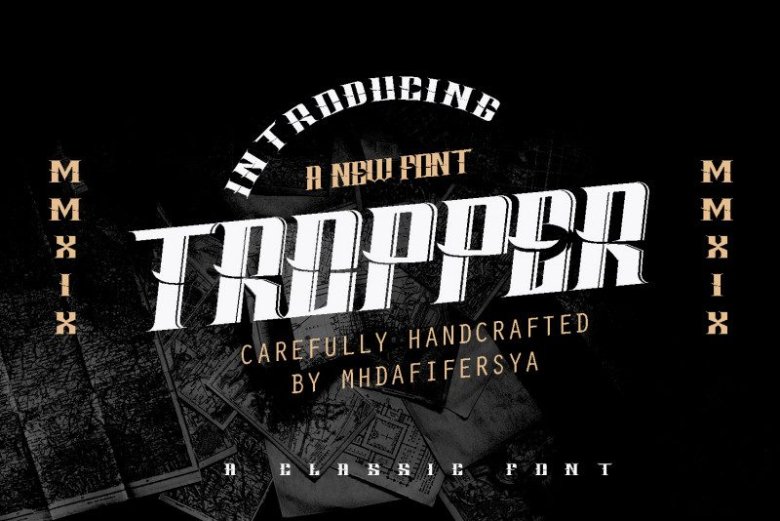
Tropper Typeface
This is sans serif and display font family. Modern casual typeface perfect use for headline, logo, magazine, and any editorial design needs also readable body text.